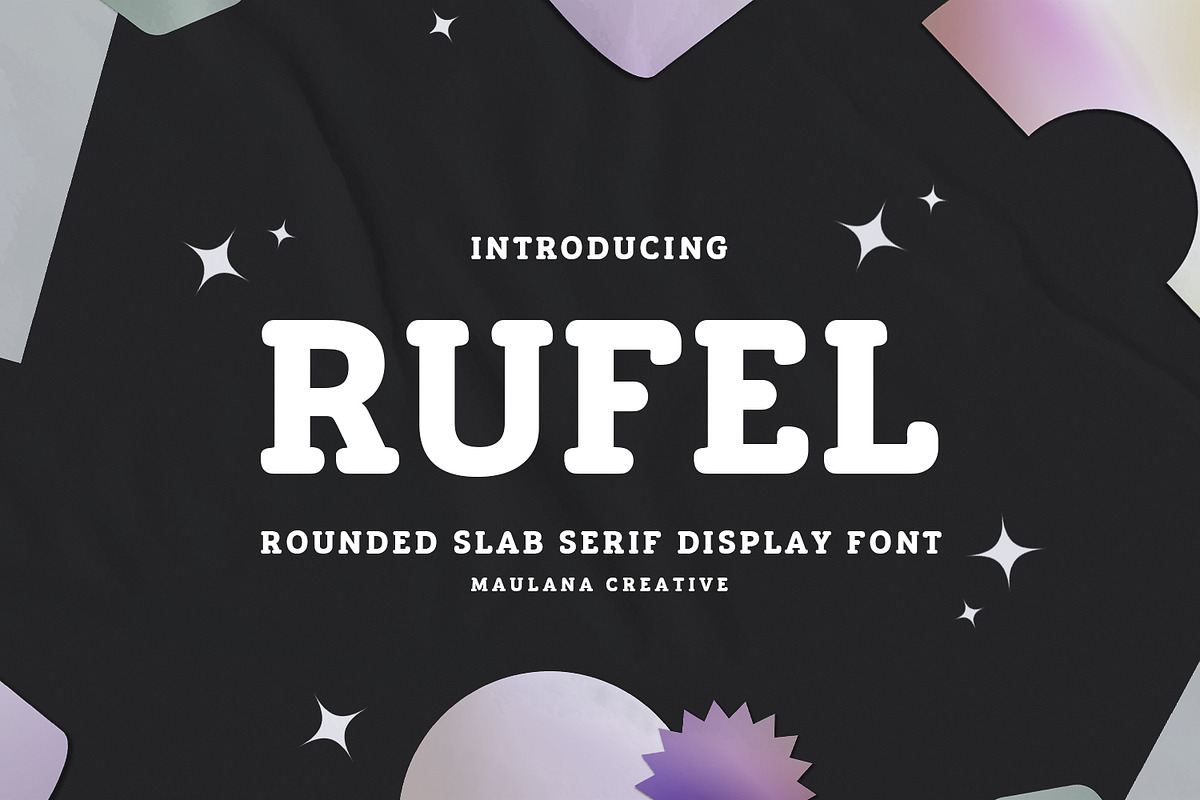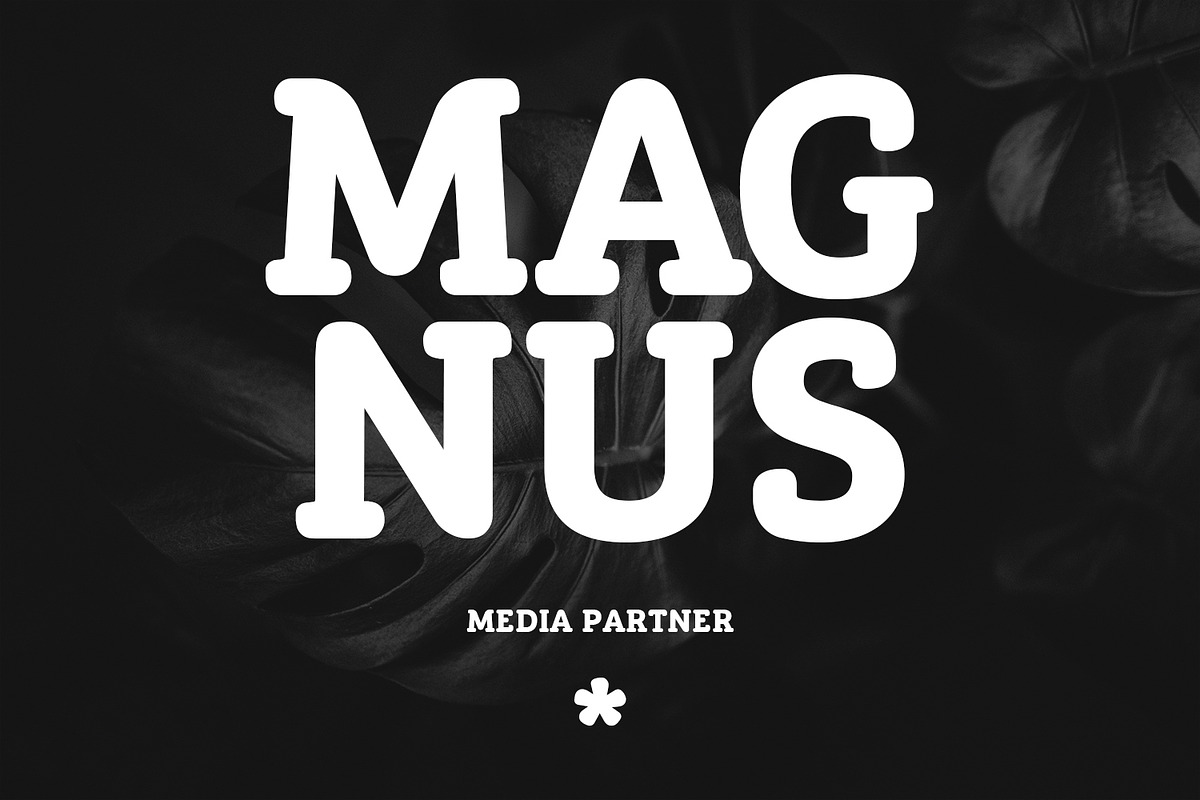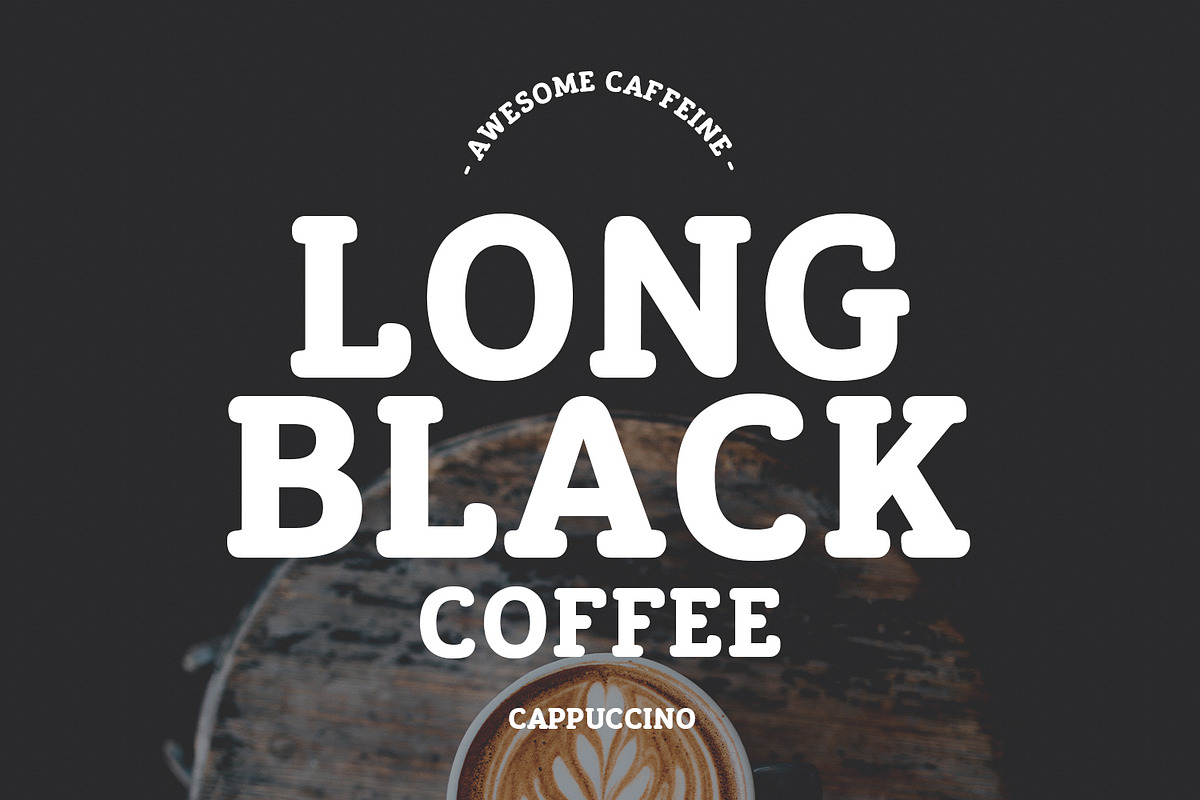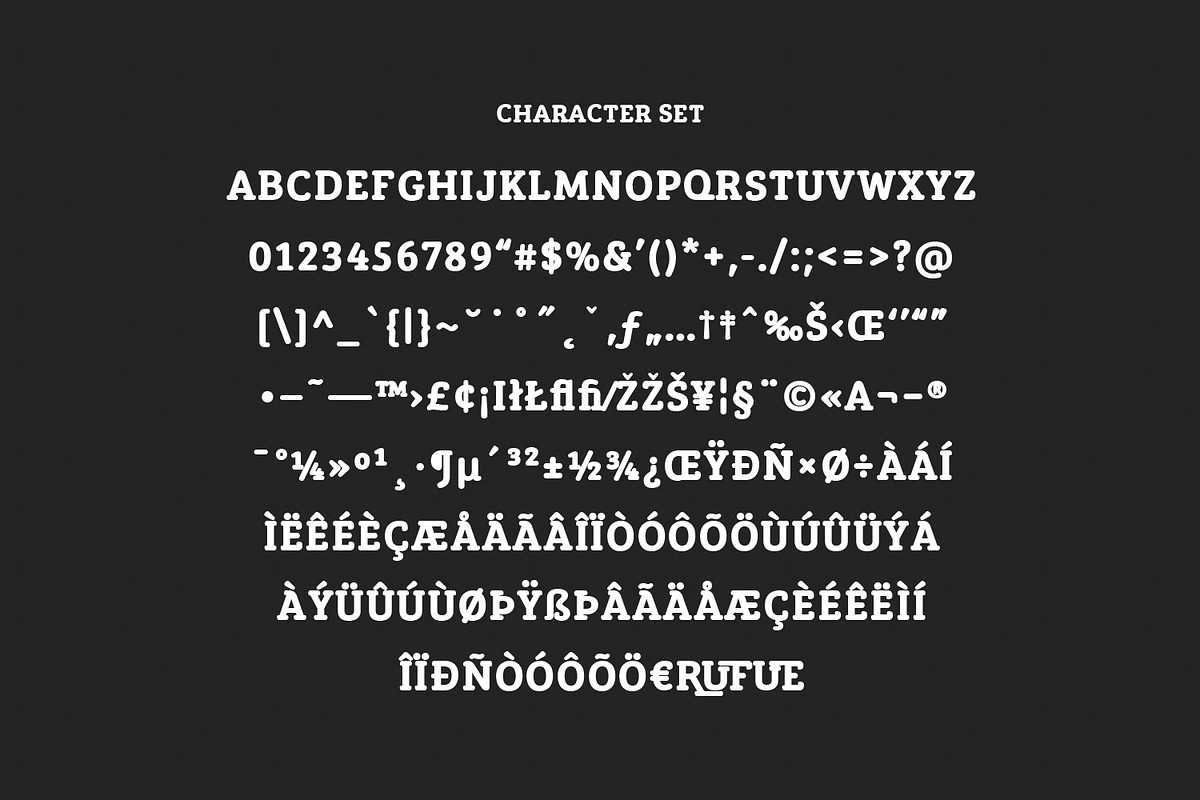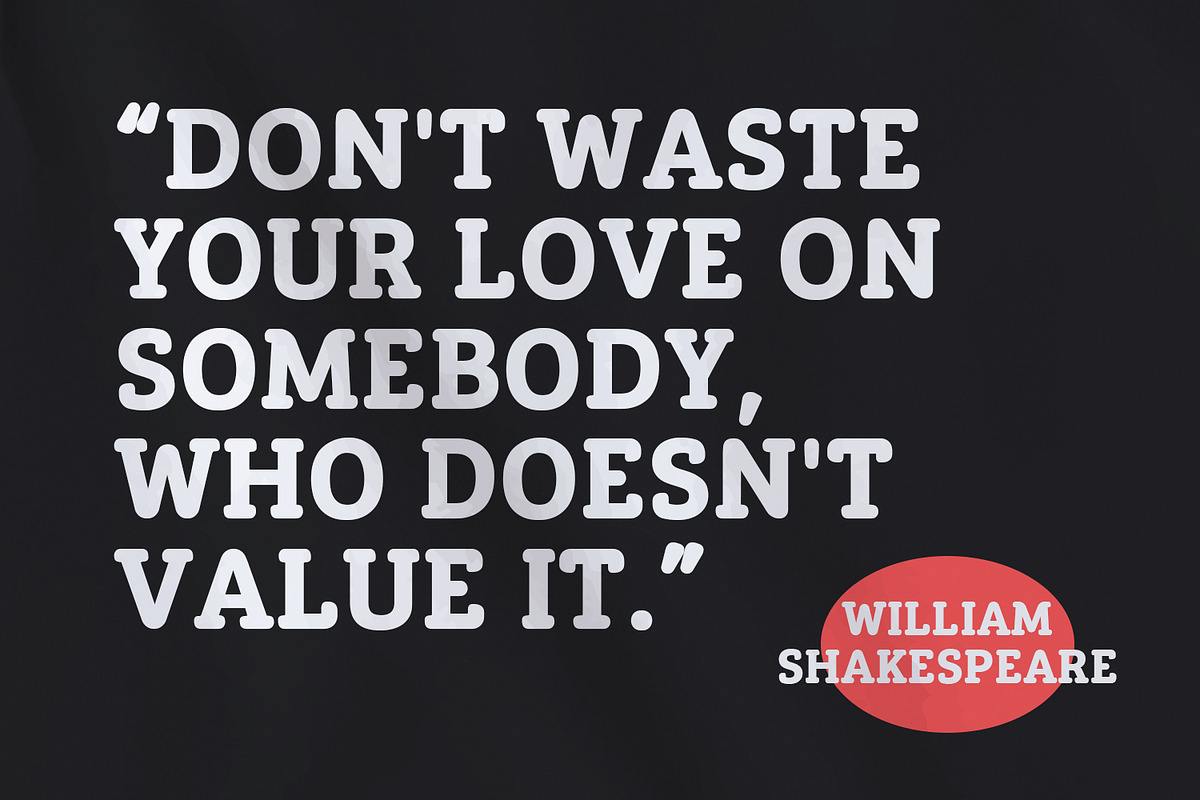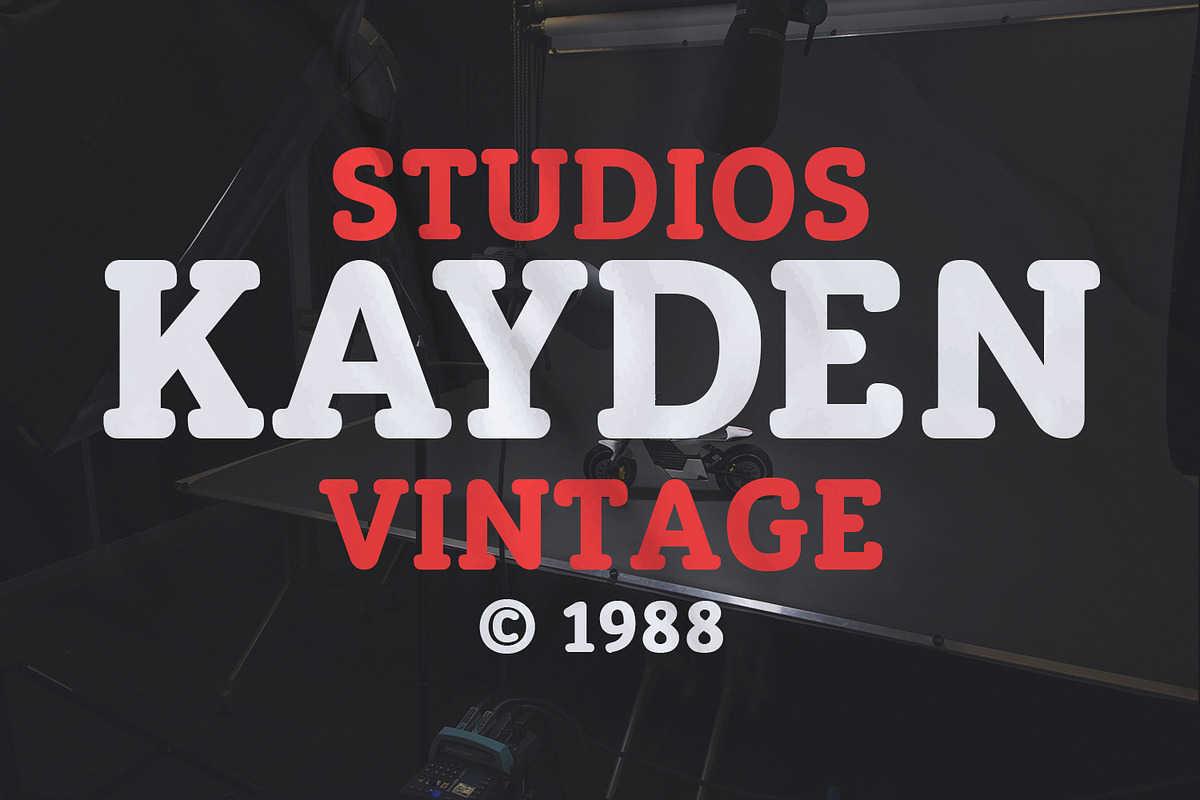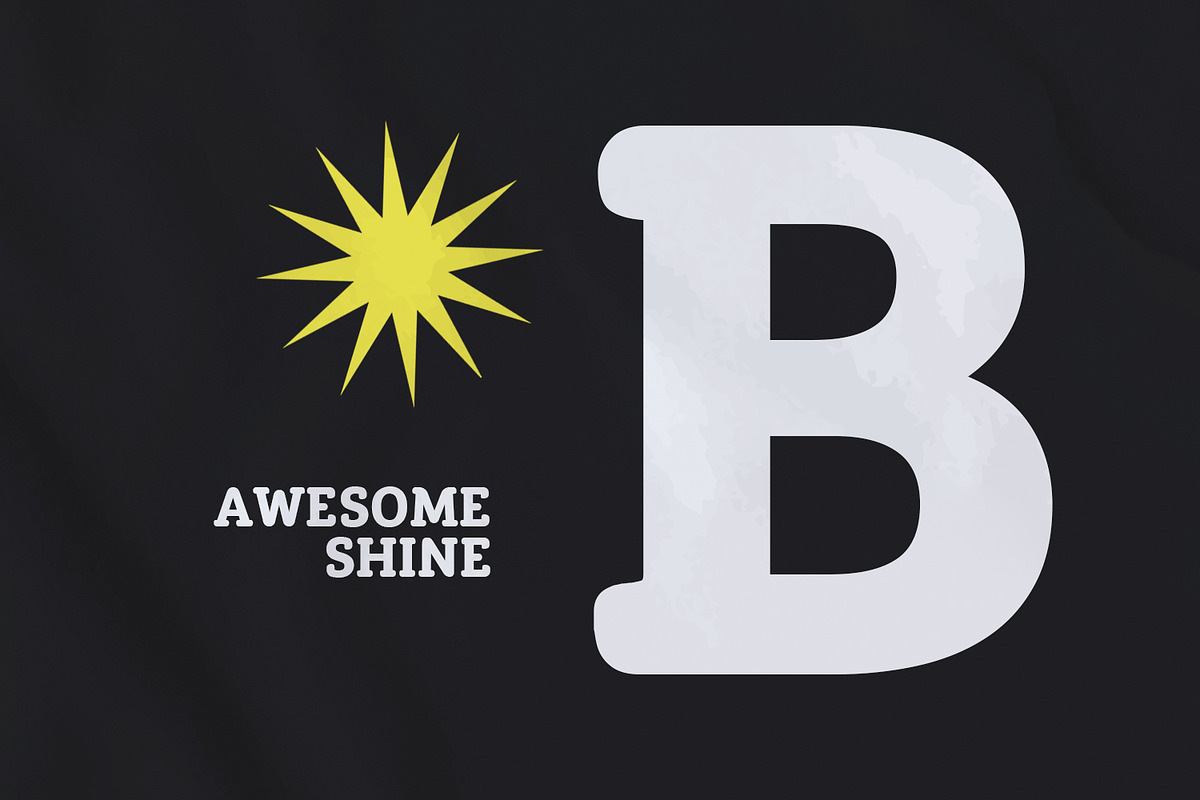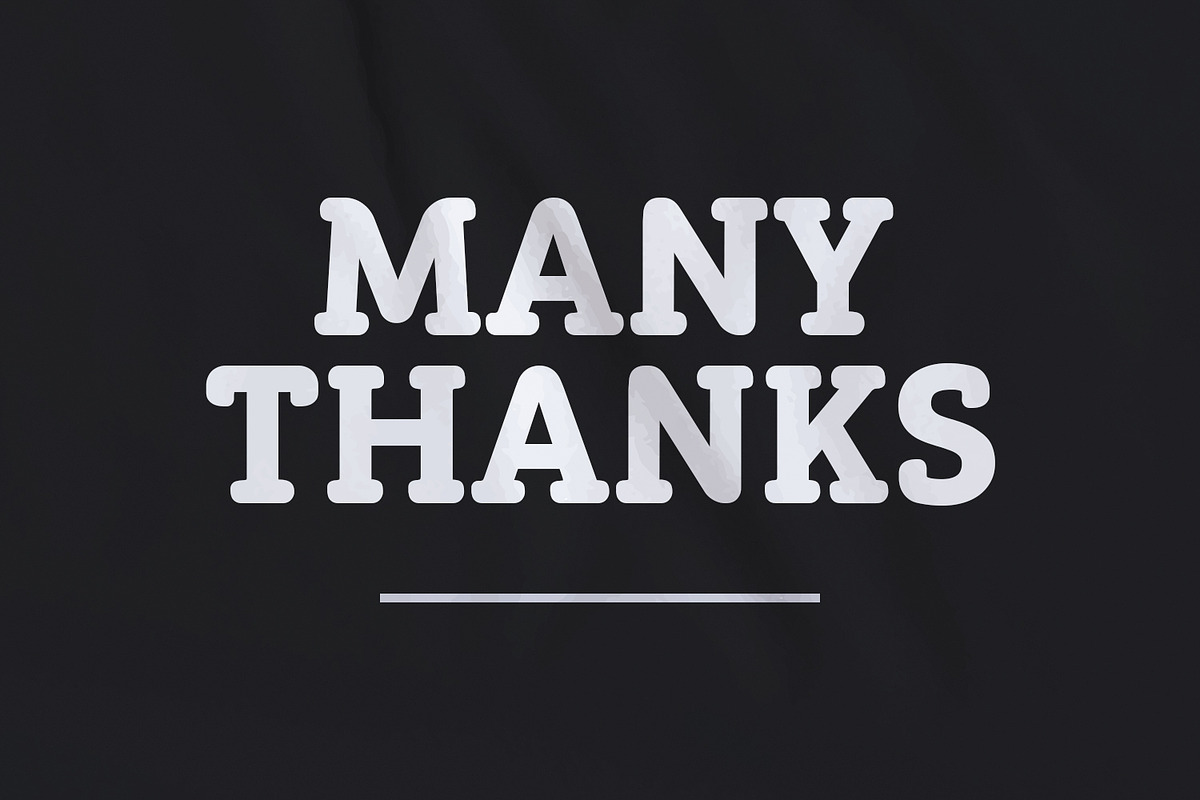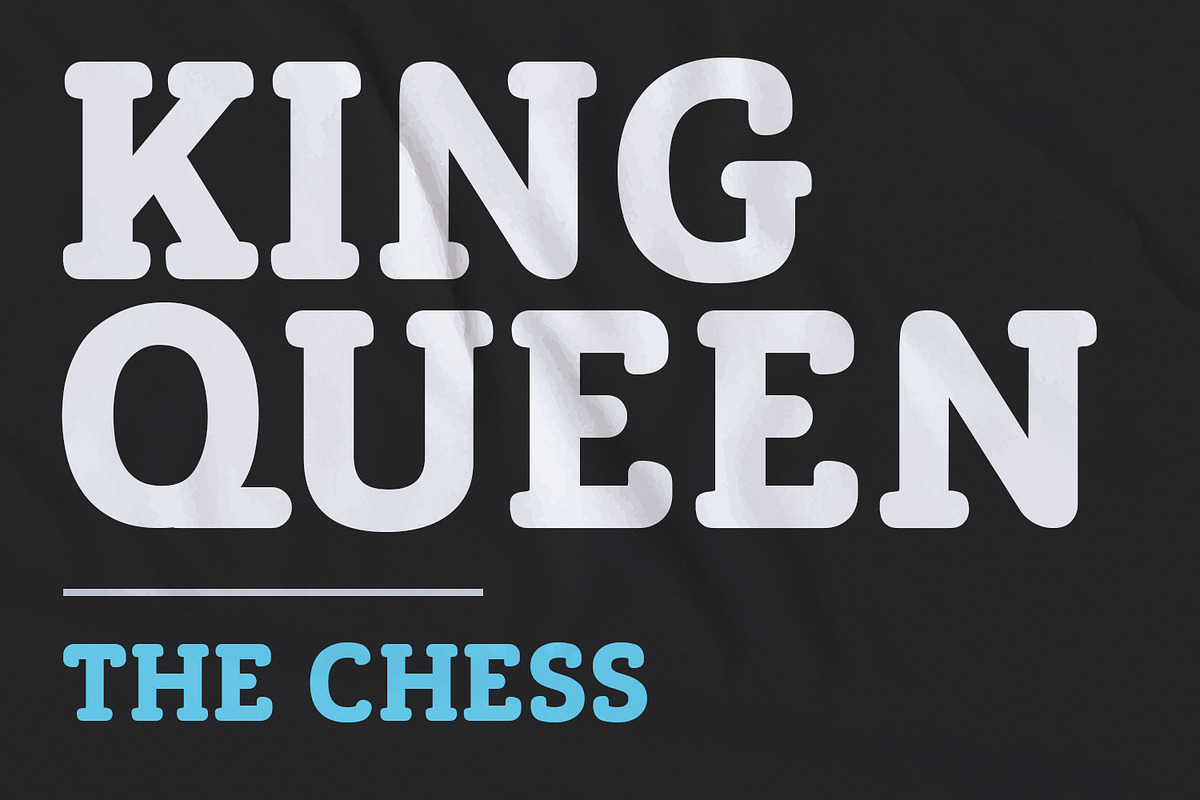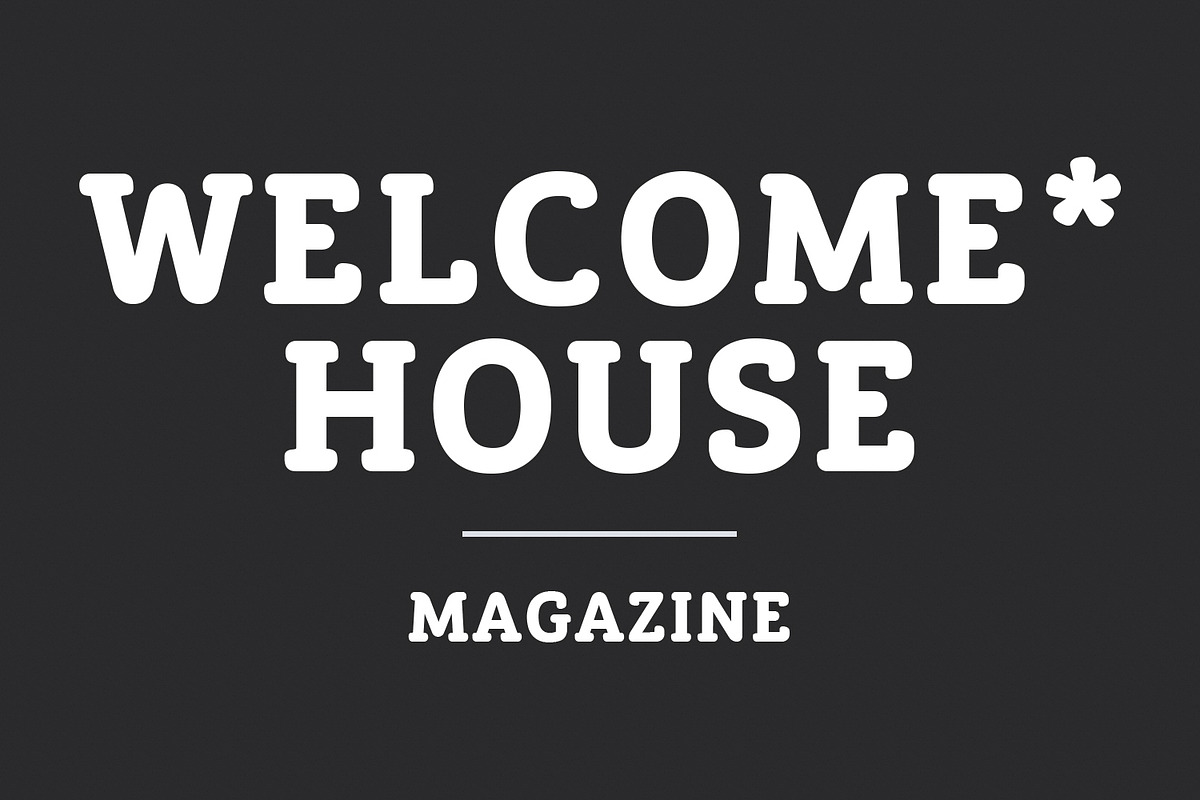
Rufel Rounded Slab Serif Display
Rufel is a rounded slab serif display font. With medium stroke, fun character with a bit of ligatures and alternates. To give you an extra creative work. Rufel font support multilingual more than 100+ language. This font is good for logo design, Social media, Movie Titles, Books Titles, a short text even a long text letter and good for your secondary text font with sans or script. Make a stunning work with Rufel font.